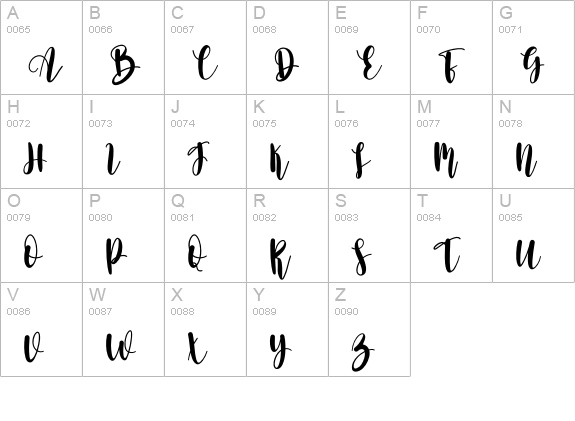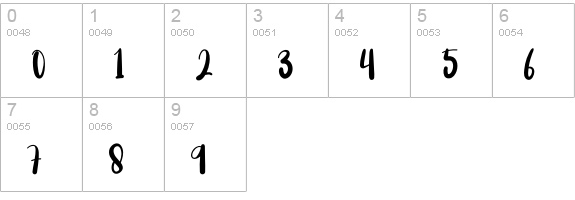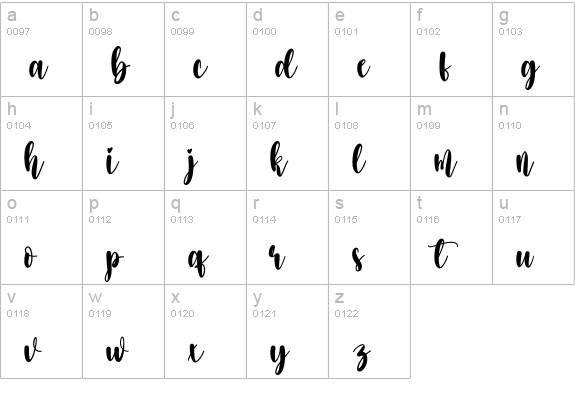
Absolute Font Details
Absolute is a free for personal use font in the Script > Handwritten category, designed by scratchones. It has been downloaded 18 times and is available for Windows, Mac and Linux.
Absolute font is a stunning display typeface that exudes elegance and sophistication. With its clean lines and modern appeal, this font is perfect for adding a touch of class to any design project. Whether you're creating a logo, heading, or poster, Absolute font will make your text stand out with its bold presence.